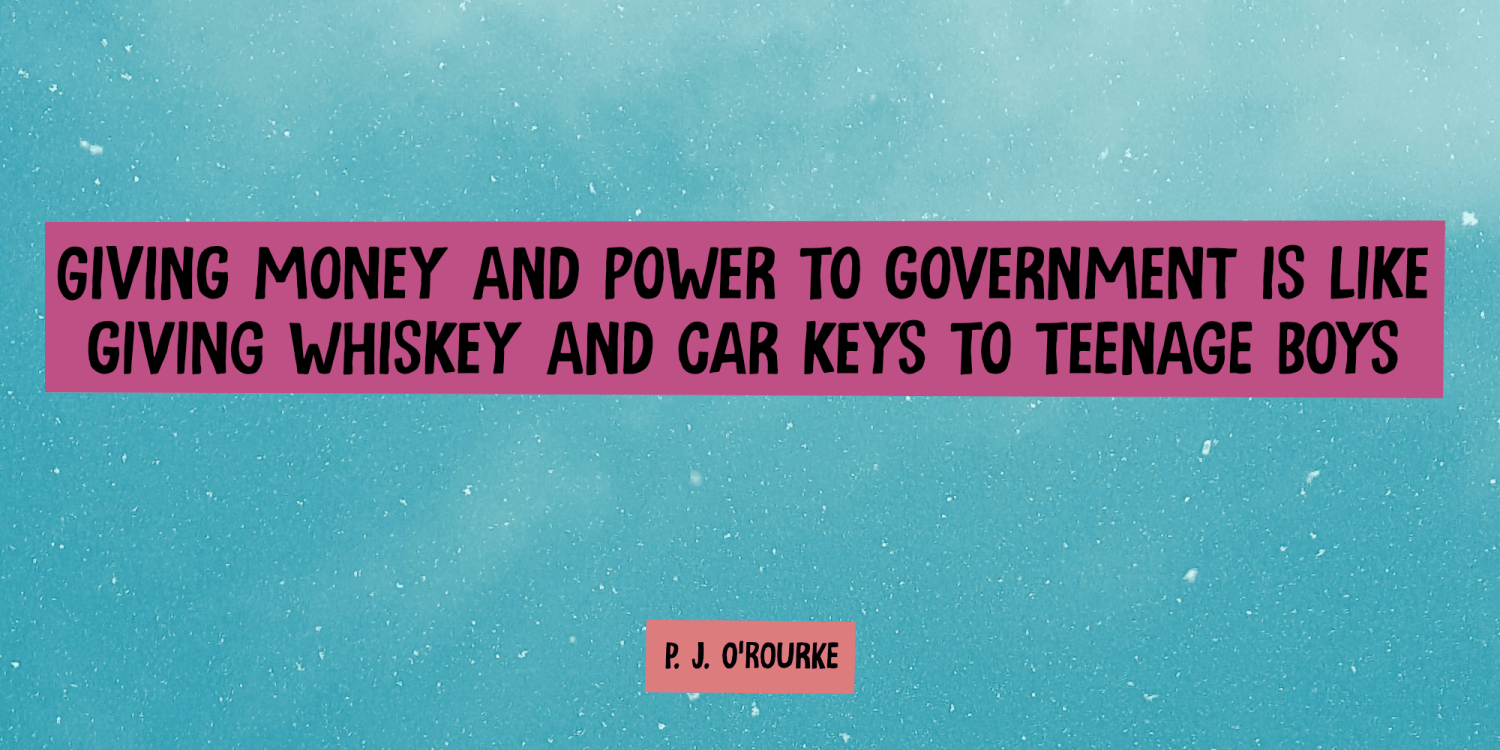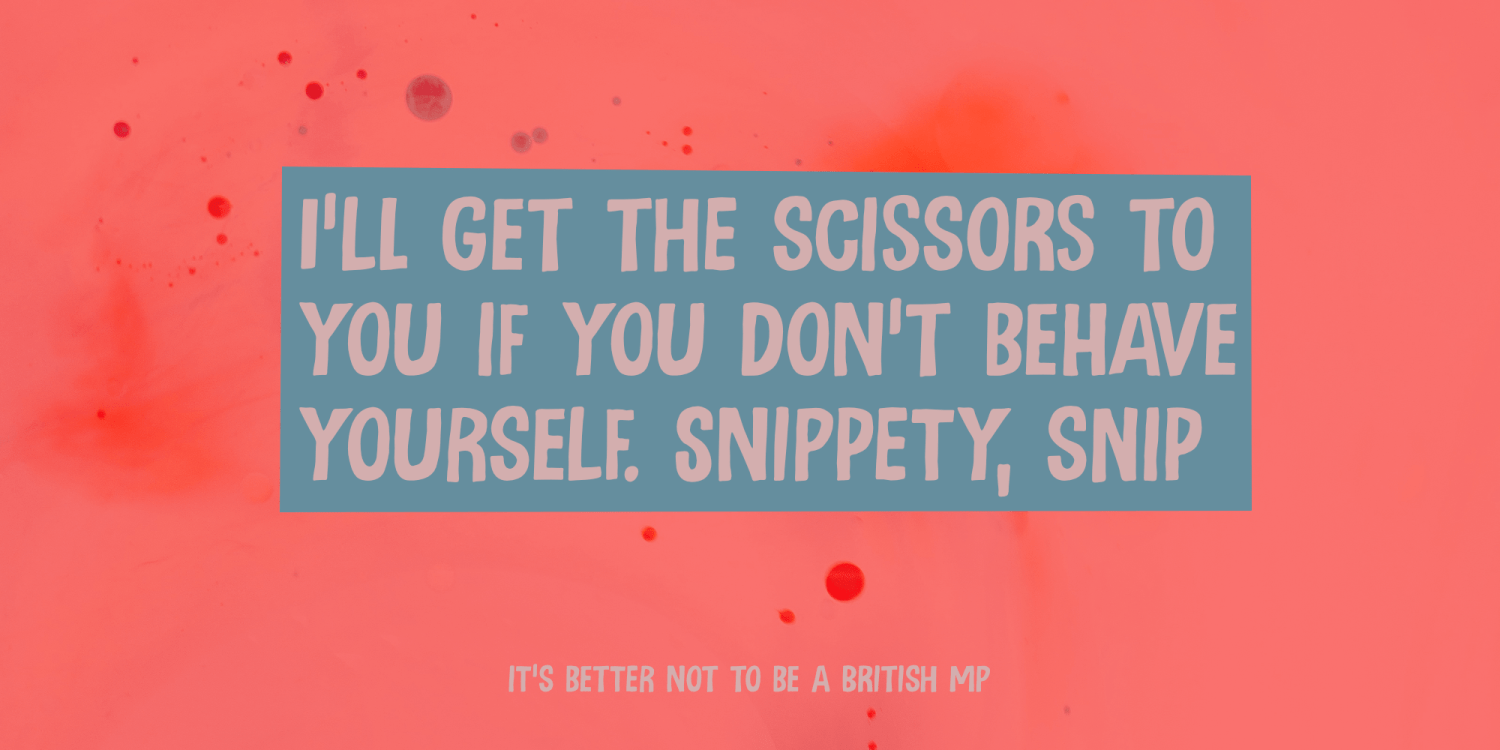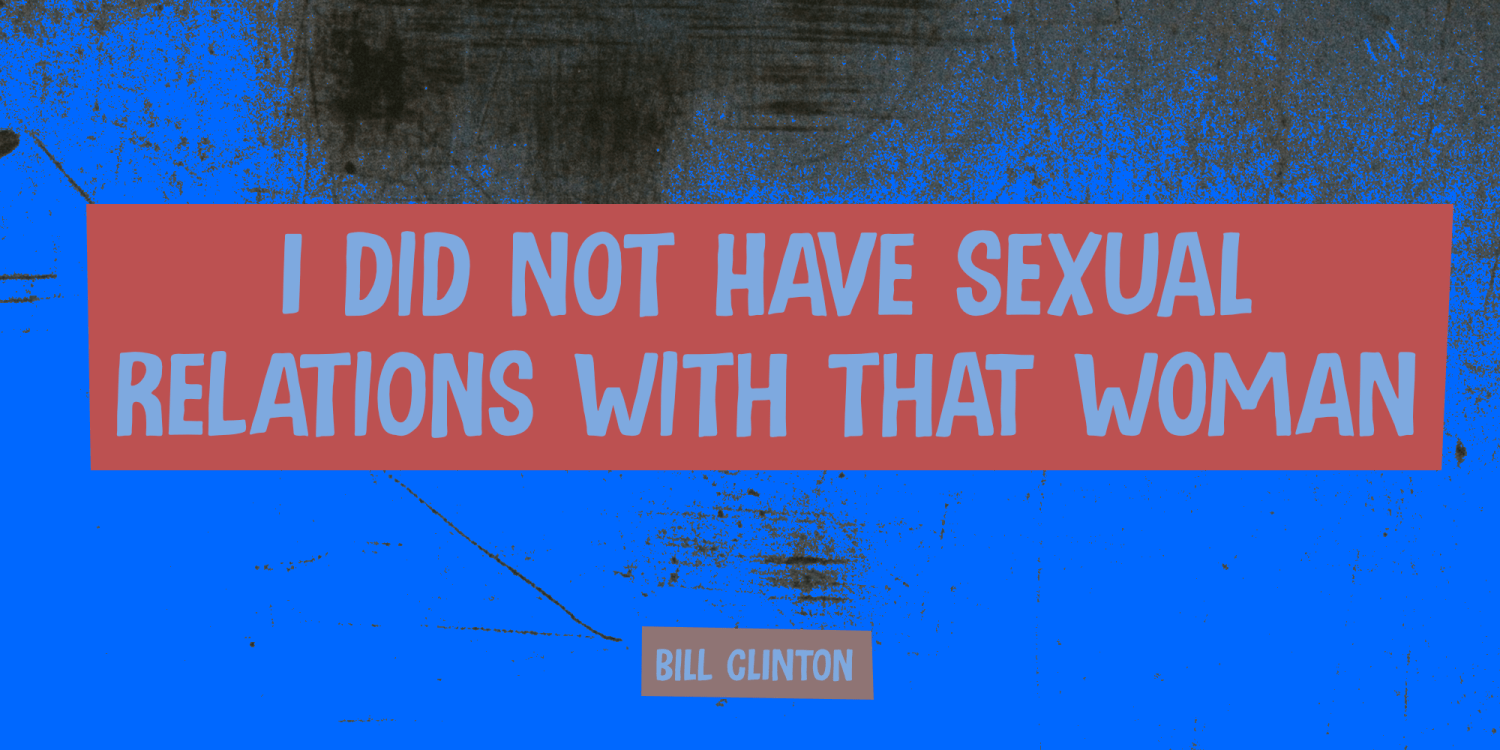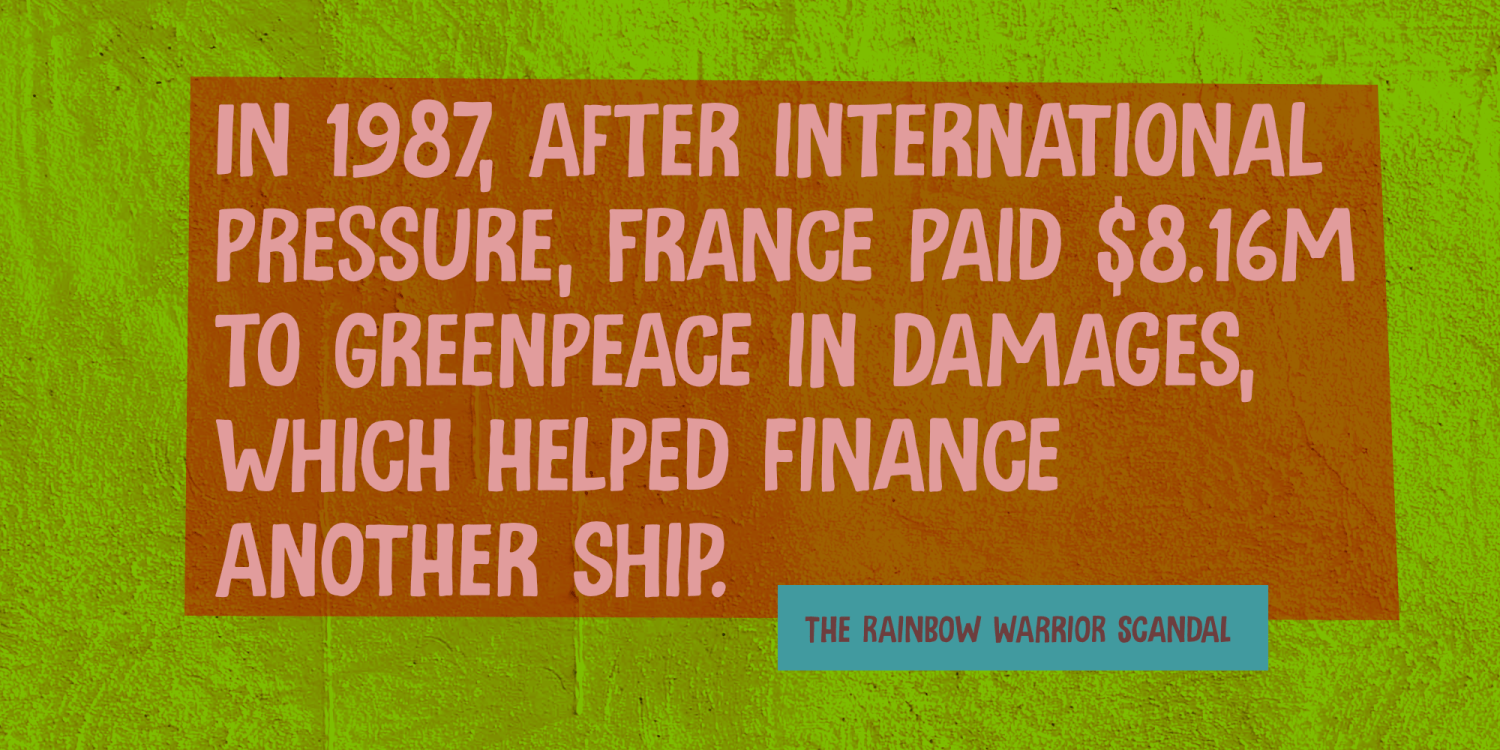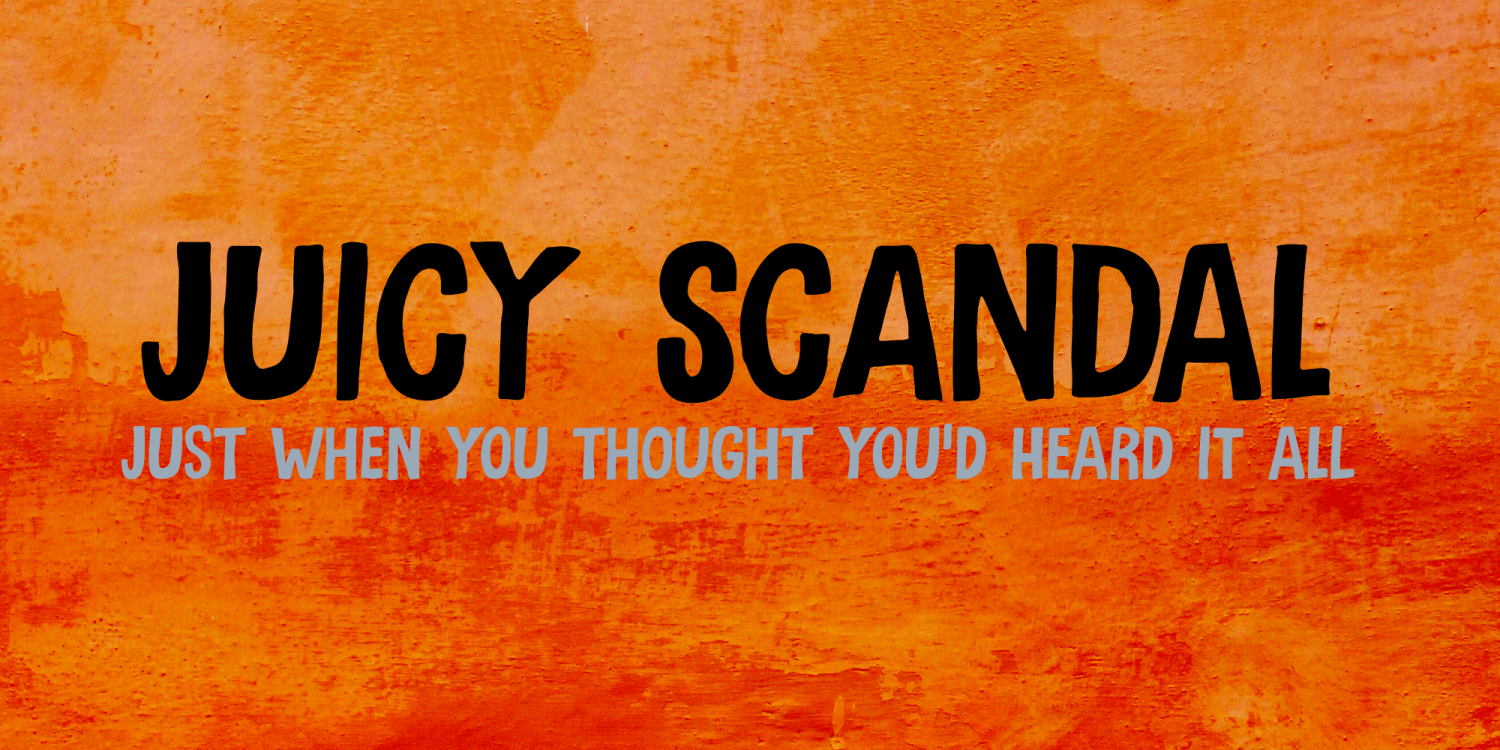
I don’t like gossip, and I couldn’t care less about celebrity scandals involving sex, lies, and videotape. But a font called Juicy Scandal, however, is something else completely! Juicy Scandal is a hand-drawn font that uses a roller ball pen…